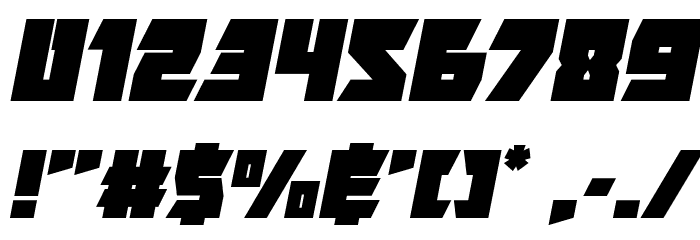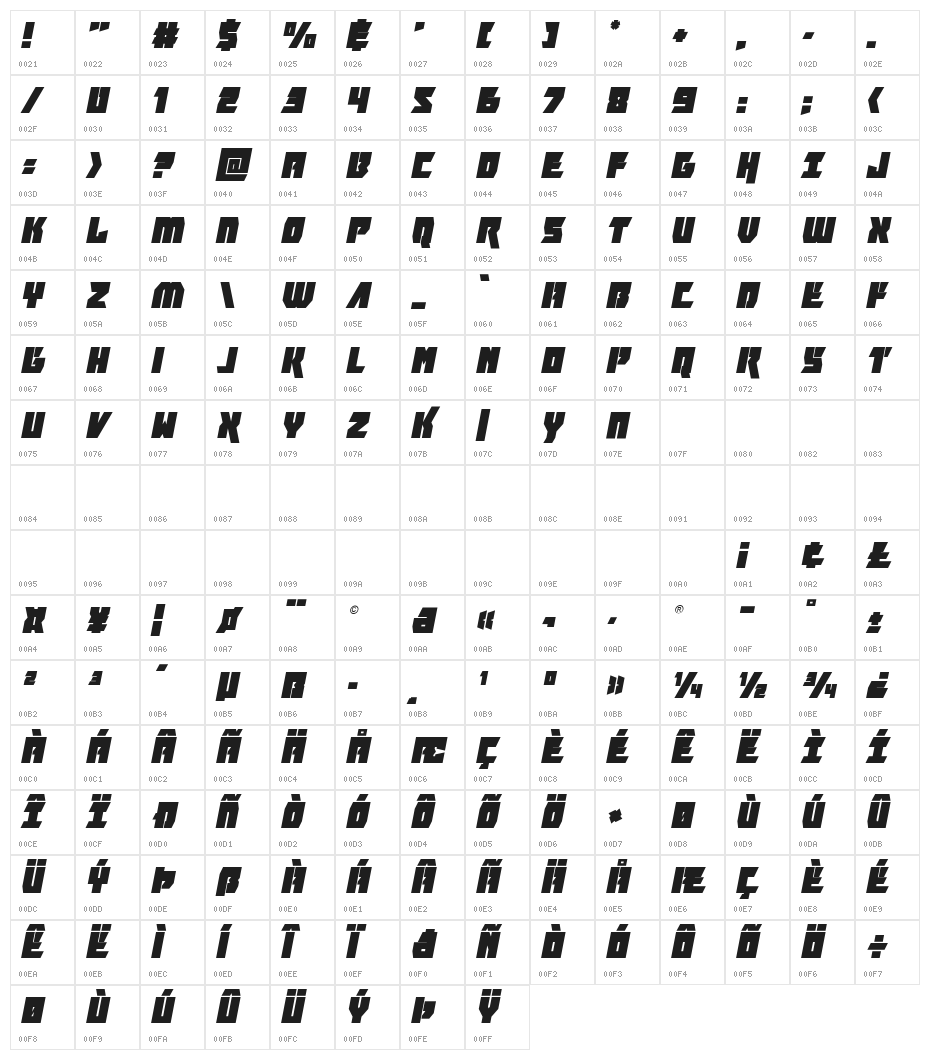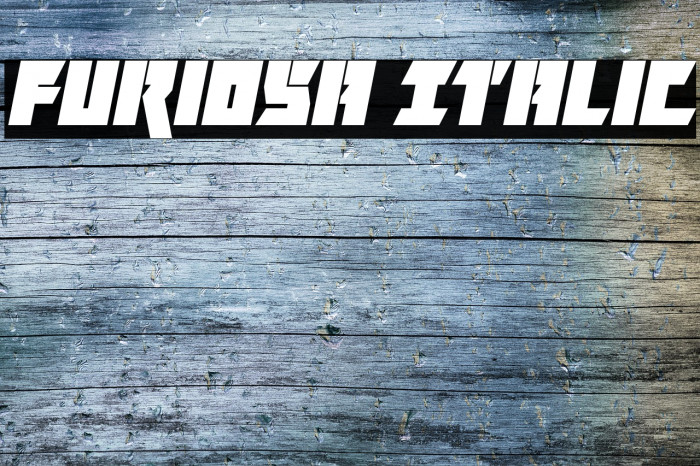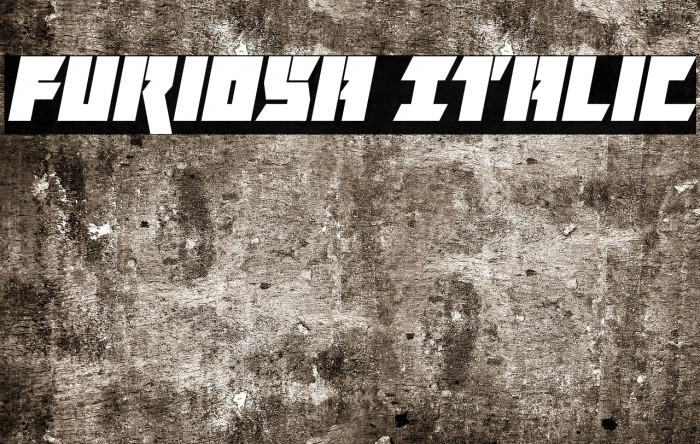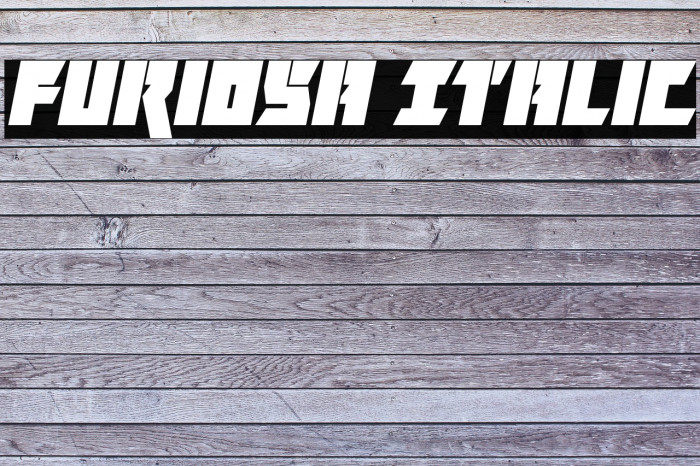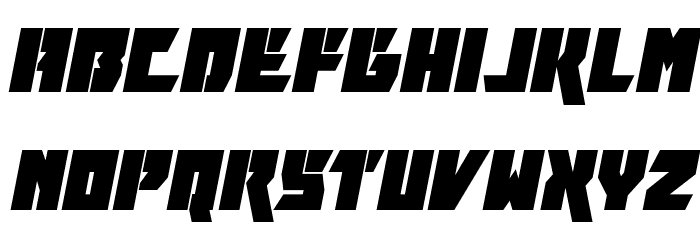
Furiosa Italic Font
Furiosa Italic Description
This font features a bold and dynamic design with sharp, angular edges and a strong geometric structure. The characters are italicized, giving them a sense of motion and energy. The uppercase and lowercase letters maintain a consistent style, with each character exhibiting a unique, edgy flair. The numbers and special characters follow the same bold and angular theme, ensuring uniformity across all glyphs. This font's striking appearance makes it ideal for attention-grabbing designs.